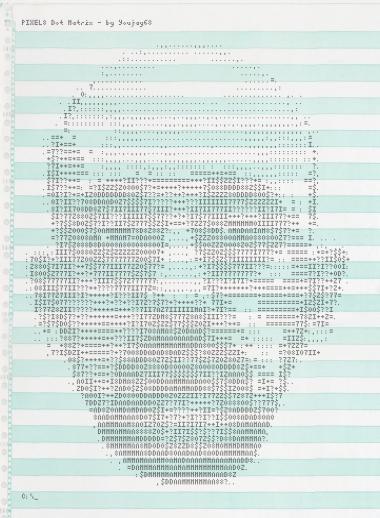
Skilled pixel artist!
• Several ambiguities: C~O, G~Q, O~Q, N~A (but coheren Mm Nn pairs), l~L, o~e (+1 x+height would improve the legibility here)
• Interesting serifs in: !ij
• 1 dot of descender too many (to me and my thriftier designs)
• Missing US-ASCII characters: "#&'@^{}~ (to validate as an actual font*)
* Nice (almost) ASCII-art conversion :-)